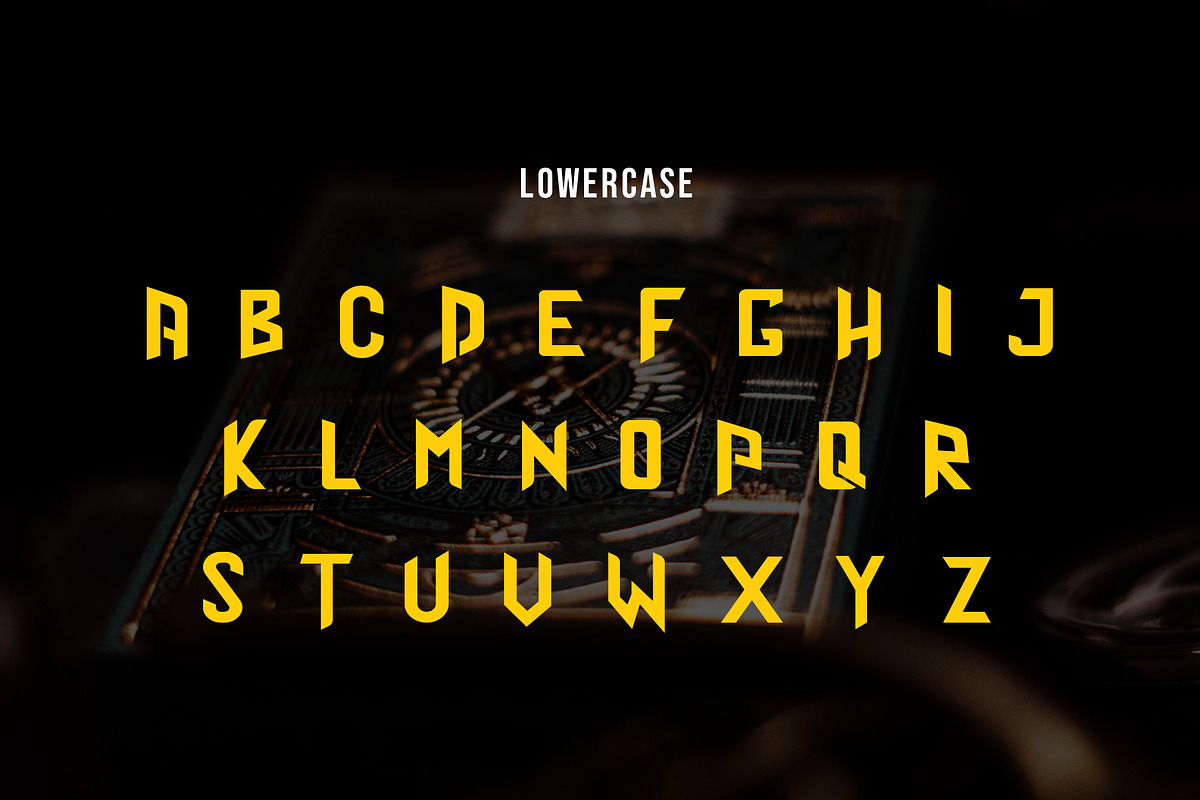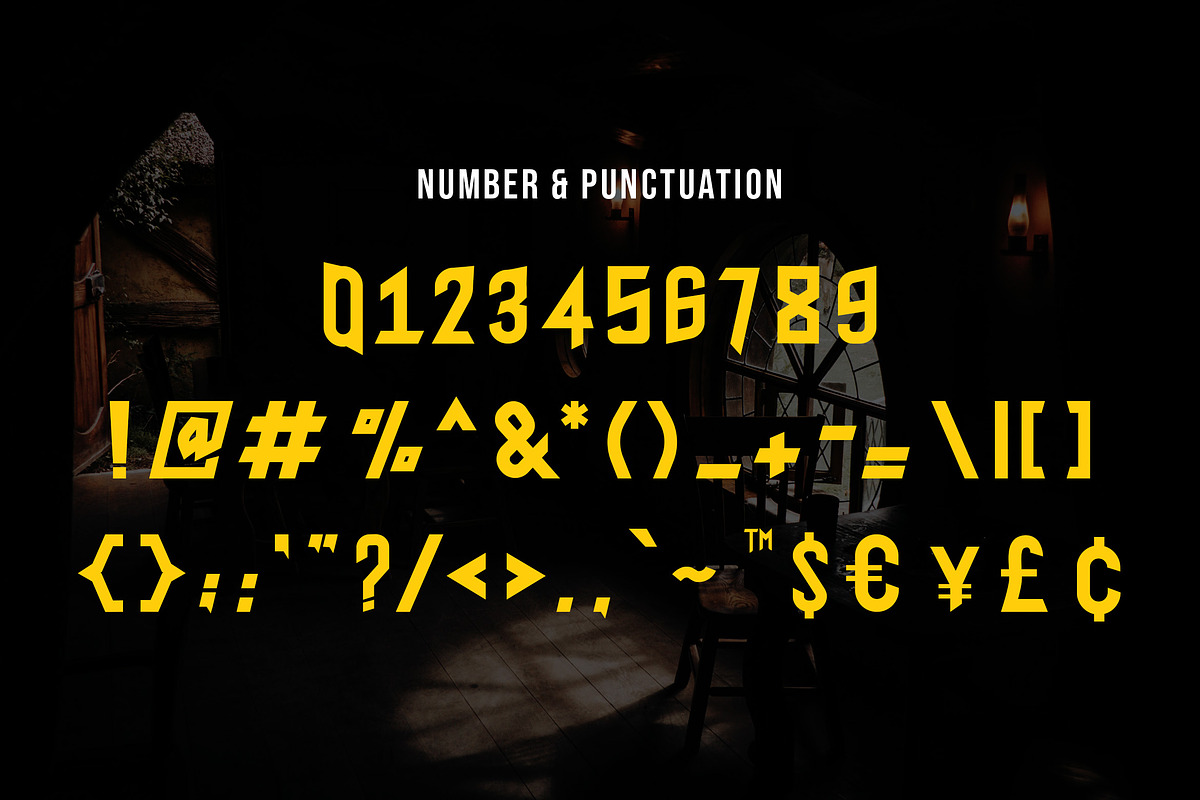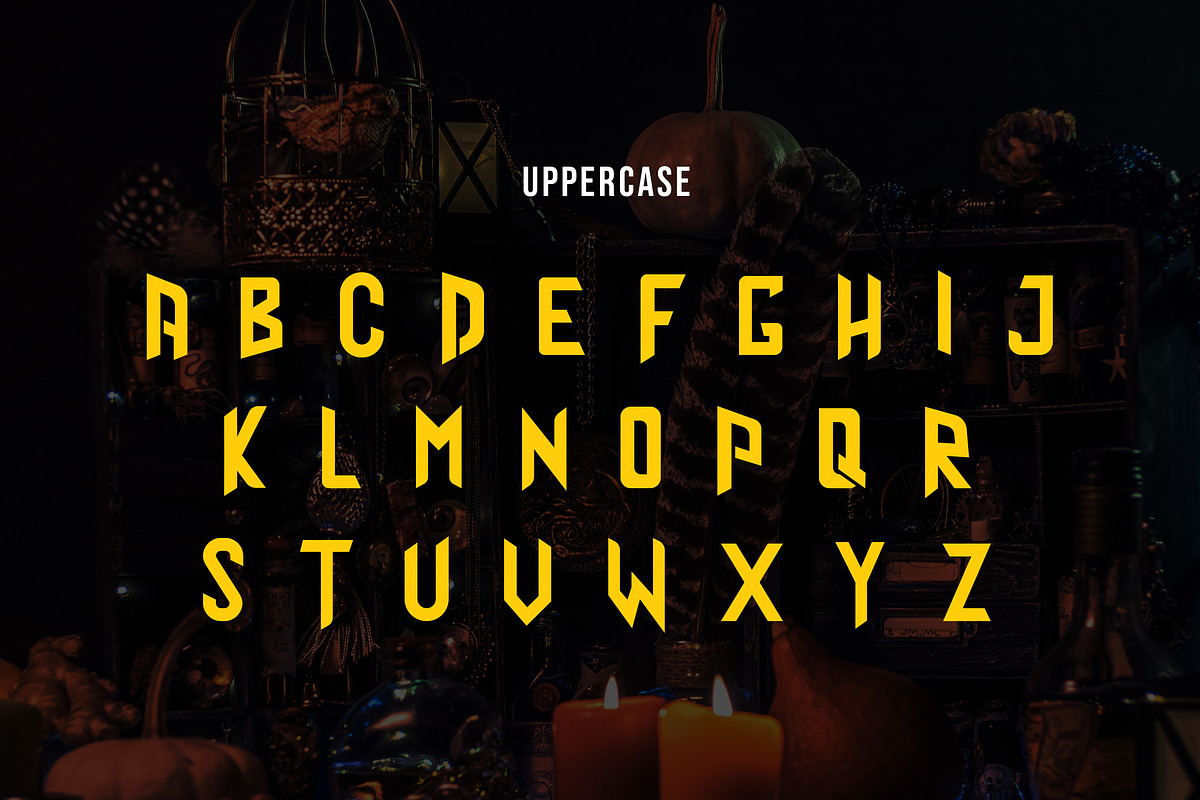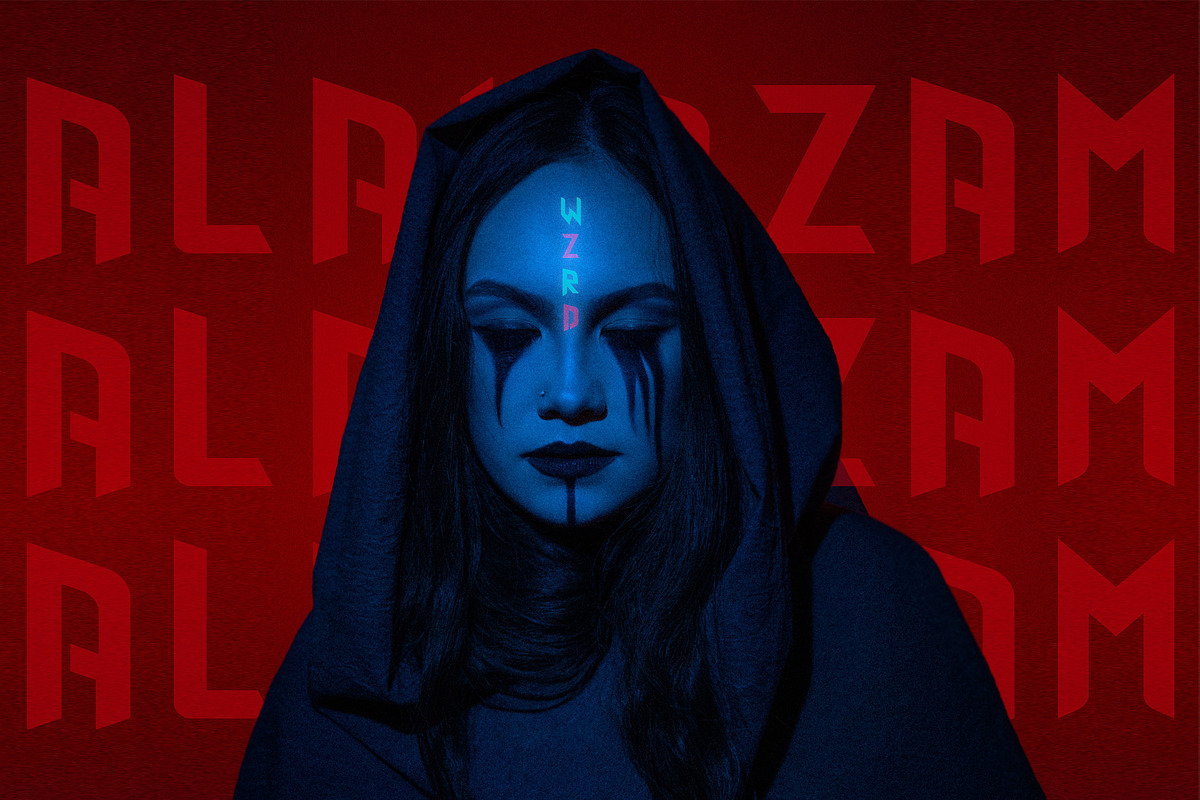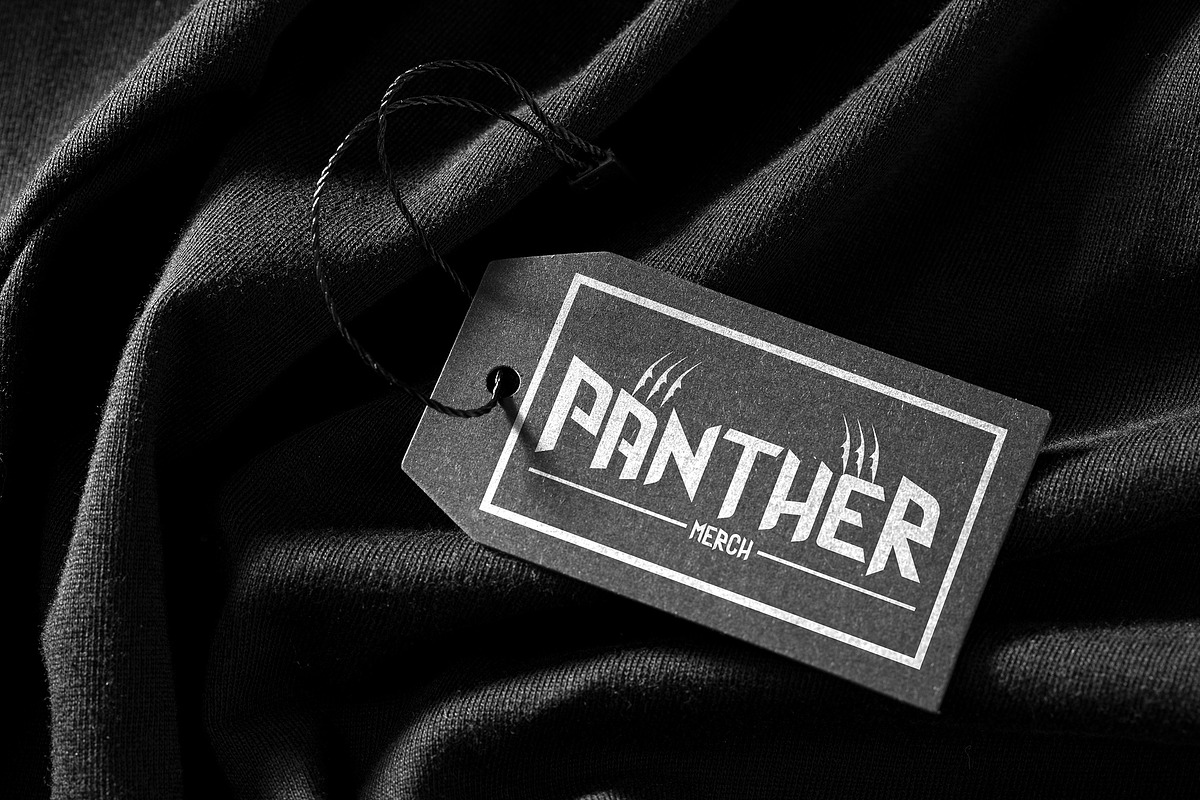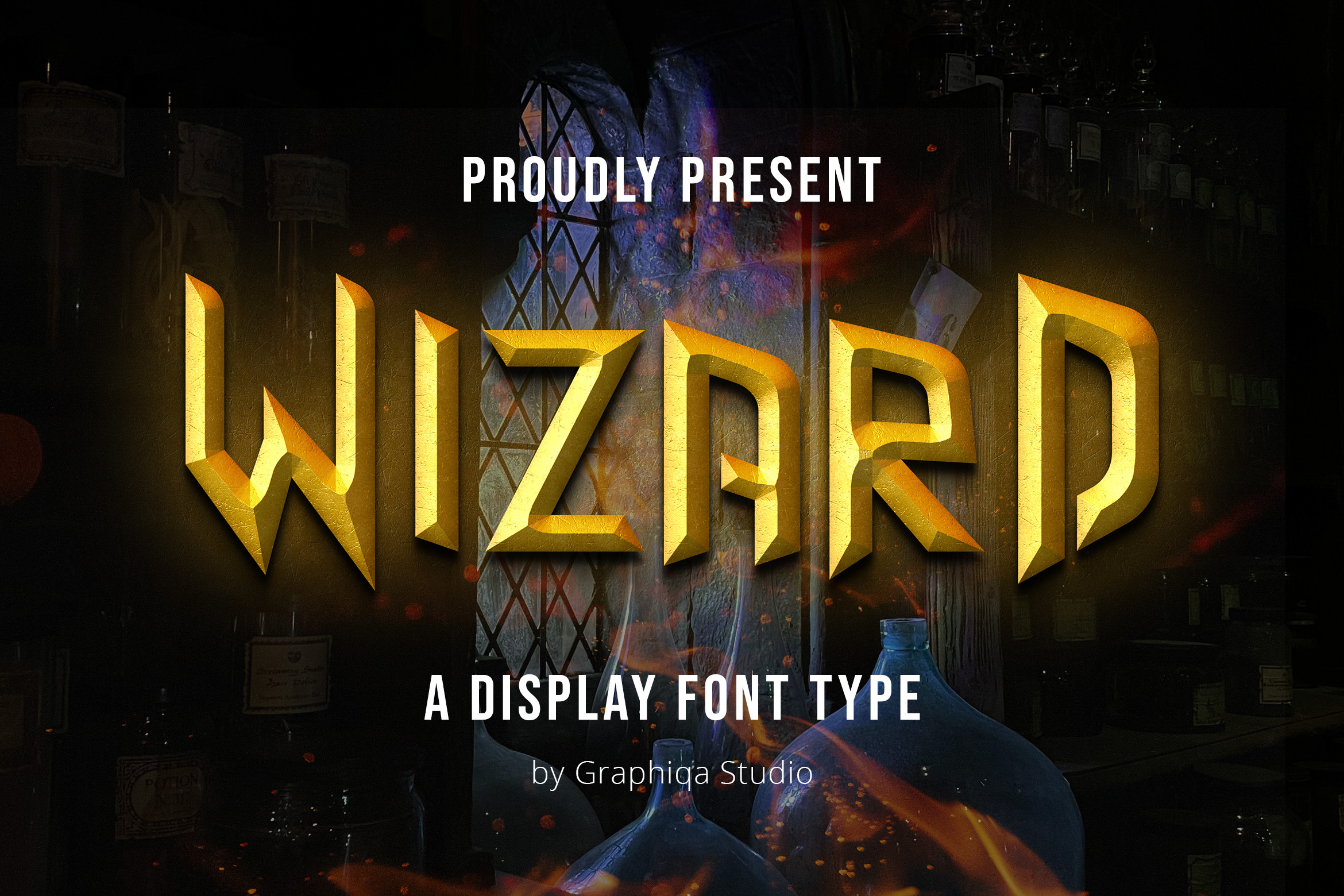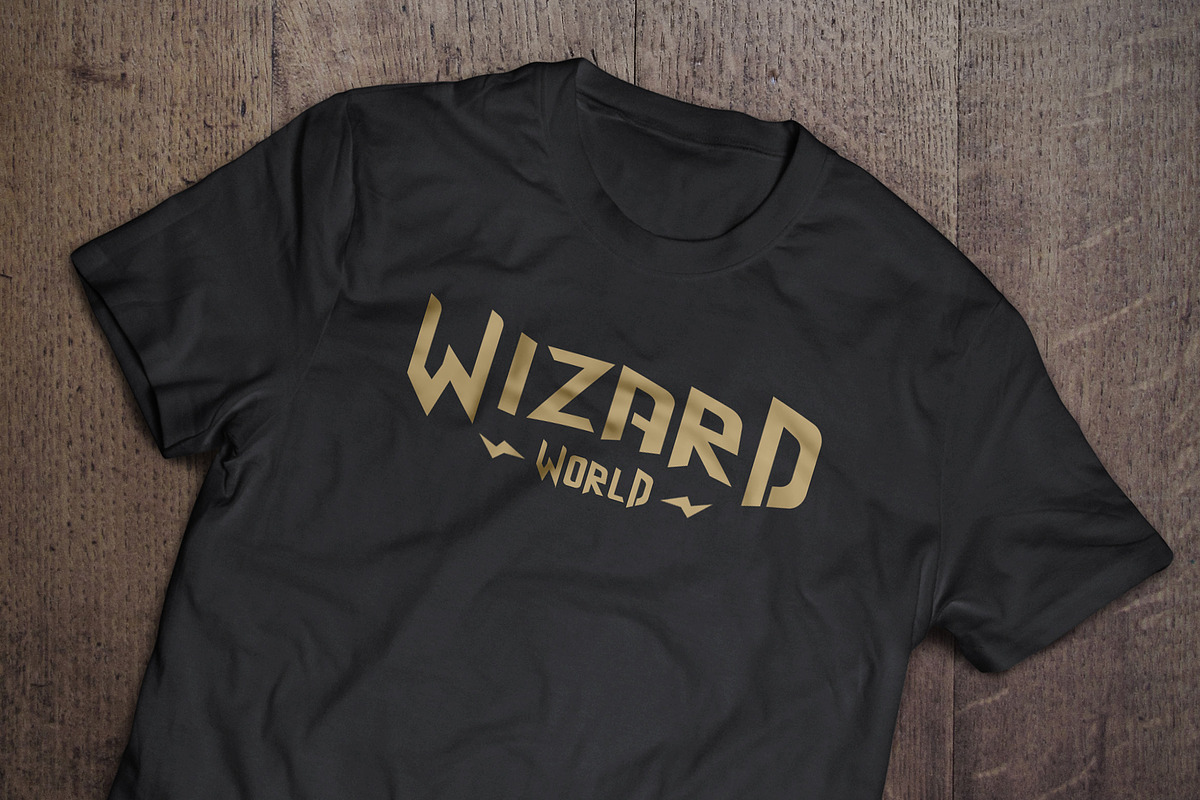
Wizard - Magic Display Font
Introducing Wizard, is a Magic Display Font has many purpose and suitable for movie, web header, logotype, branding, advertising, event and much more